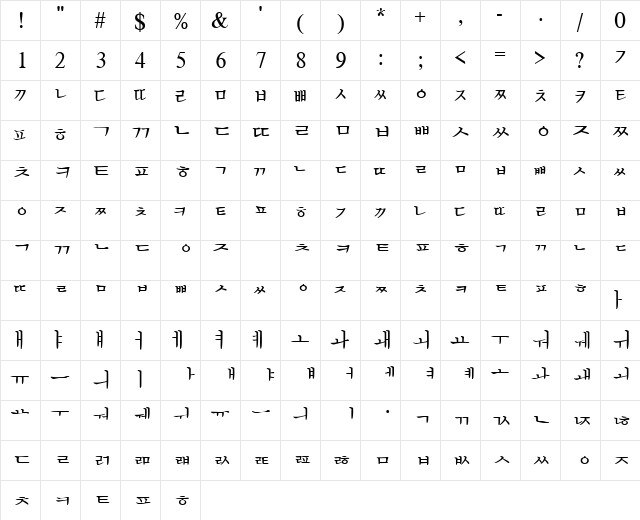
KoreanTimesSSK Regular
Design Context for KoreanTimesSSK Typeface
KoreanTimesSSK is a composed and adaptable typeface that performs quietly and consistently across a wide range of design contexts.